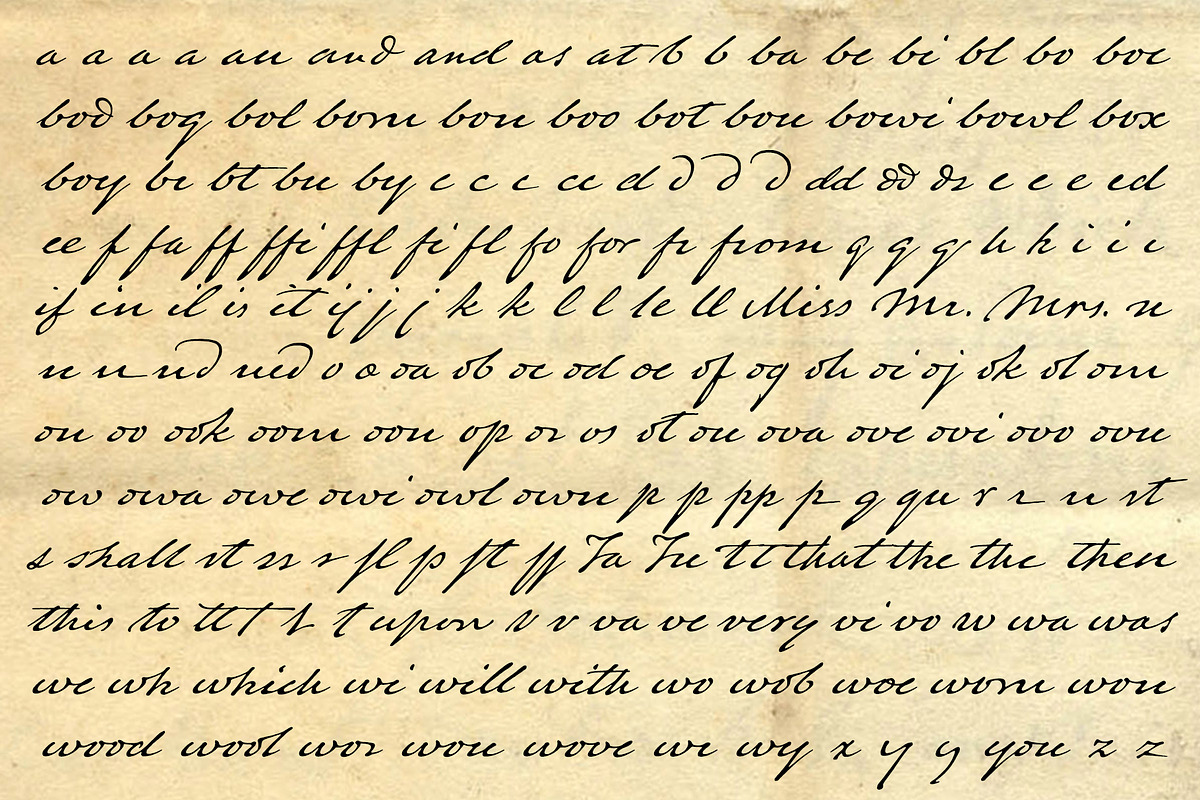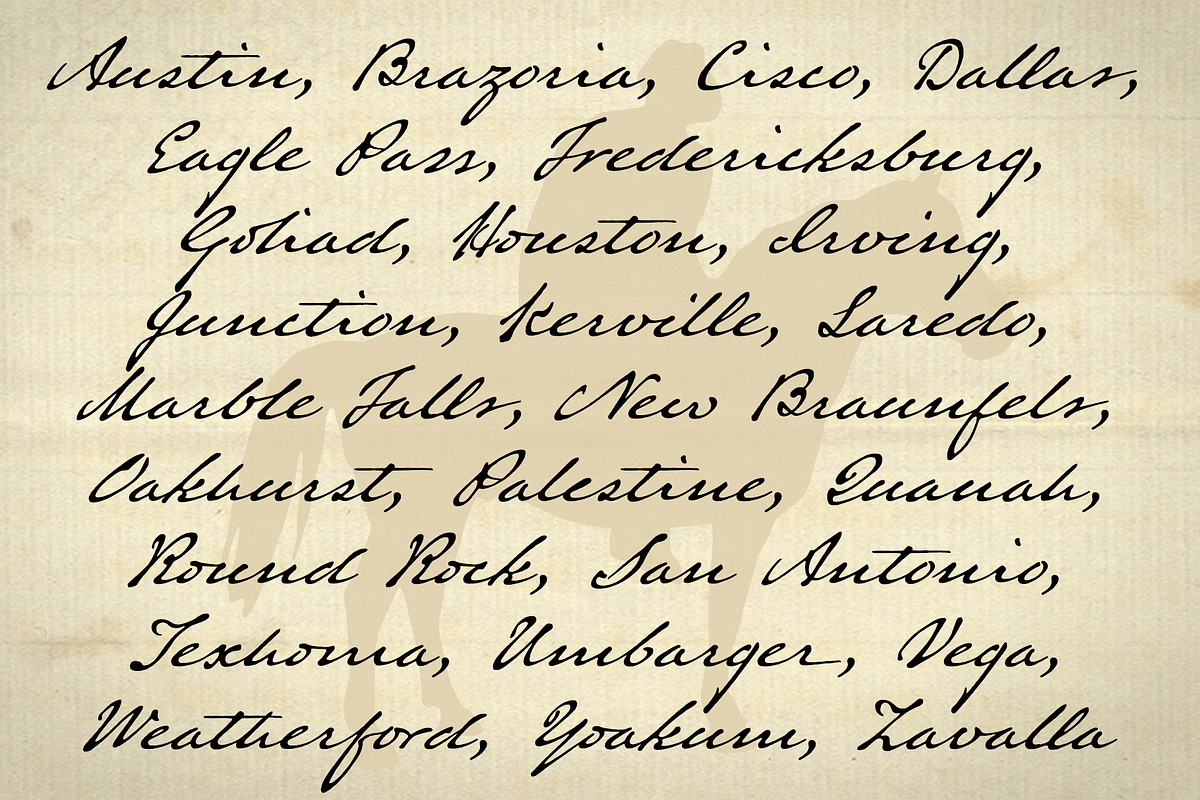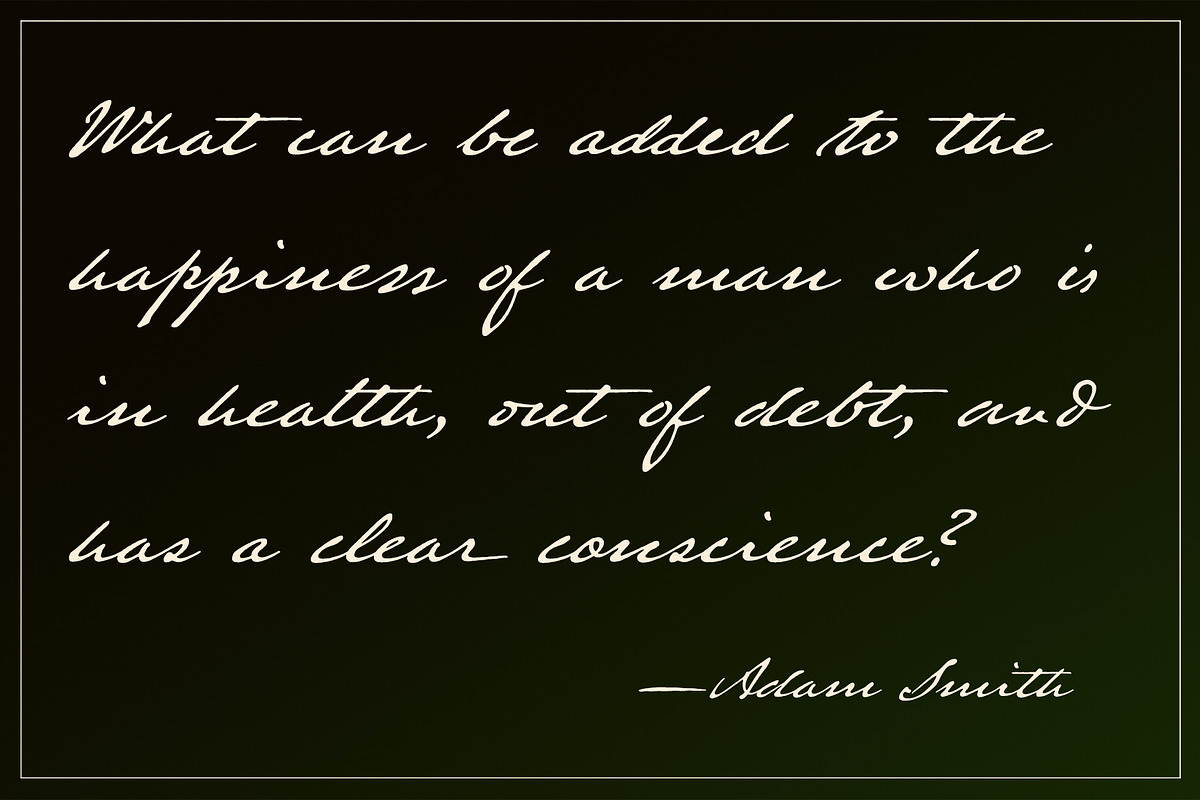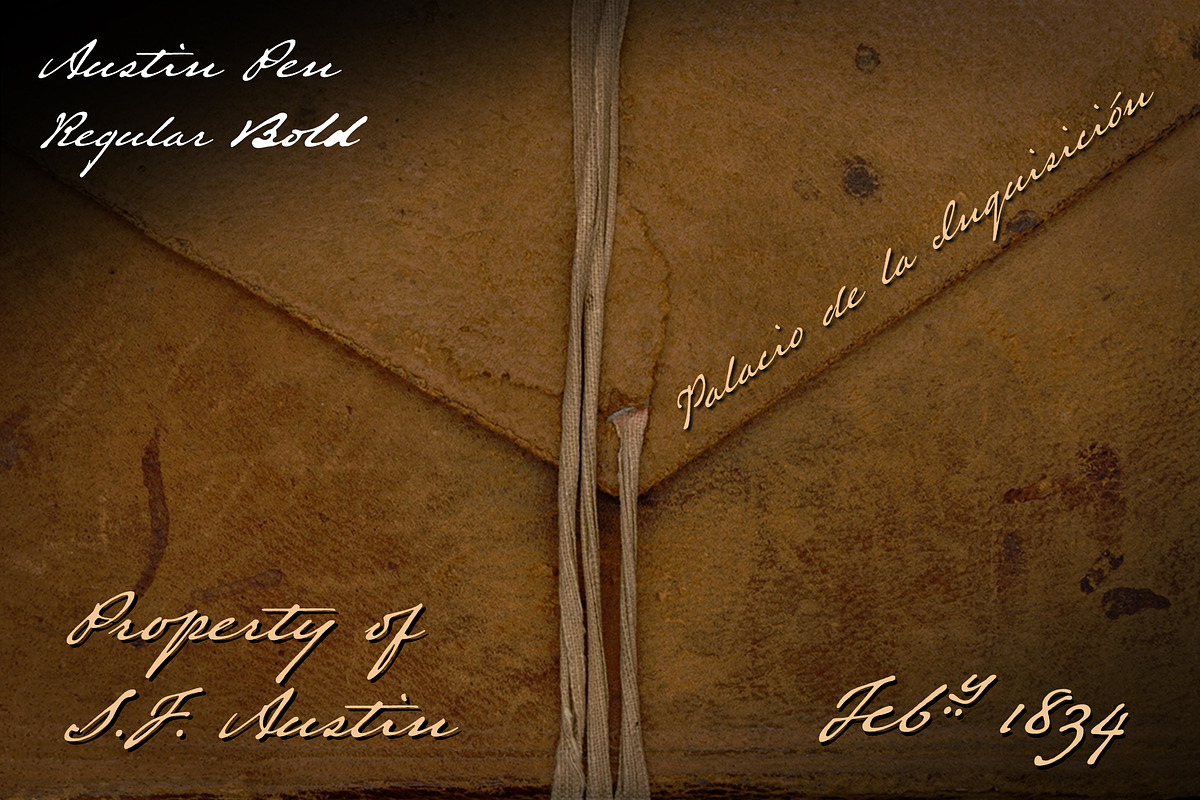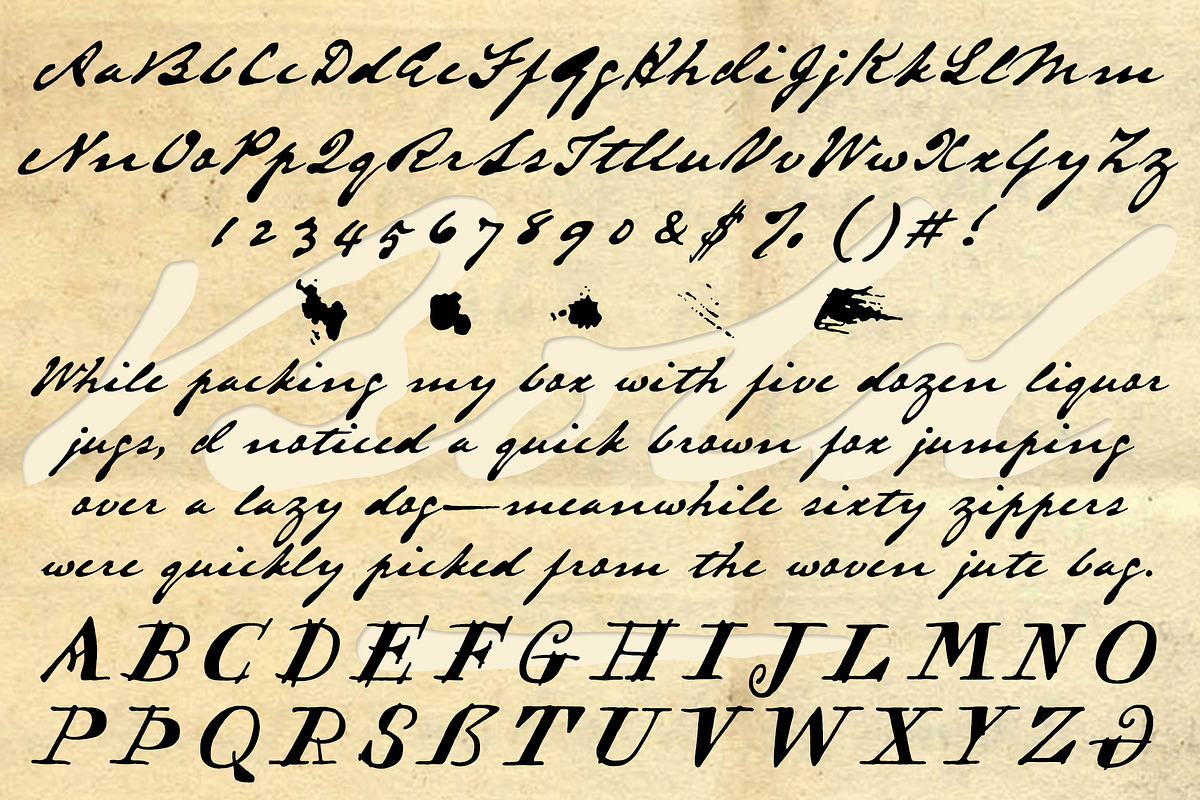
Austin Pen, an 1800s script font.
Empresario Stephen F. Austin (1793-1836) is considered by many the “Father of Texas” for leading the first Anglo-American colony into the then-Mexican territory back in the 1820s. A few years later, while on a diplomatic mission to Mexico City, Austin was arrested on suspicion of plotting Texas independence and imprisoned for virtually all of 1834. During this time he kept a secret diary of his thoughts and musings—much of it written in Spanish.
Austin Pen is my interpretation of his scribblings in this miniature prison journal (now in the collection of the wonderful Dolph Briscoe Center for American History, in the Texas city that bears his name). The little leather-bound book is filled with notes in ink and pencil—some of the faded penciled pages traced in ink years later by Austin’s nephew Moses Bryan.
A genuine replication of 19th century cursive, Austin Pen has two styles: a fine regular weight, along with a bold style that replicates passages written with an over-inked pen. Each is legible and evocative of commonplace American penmanship of two centuries ago.
OpenType features include scores of standard and discretionary ligatures, stylistic alternates, contextual substitutions, lining and old-style figures, cross-outs, ink blots, a bonus hand-lettered uppercase alphabet, and full Latin support—nearly 1,200 glyphs in all.